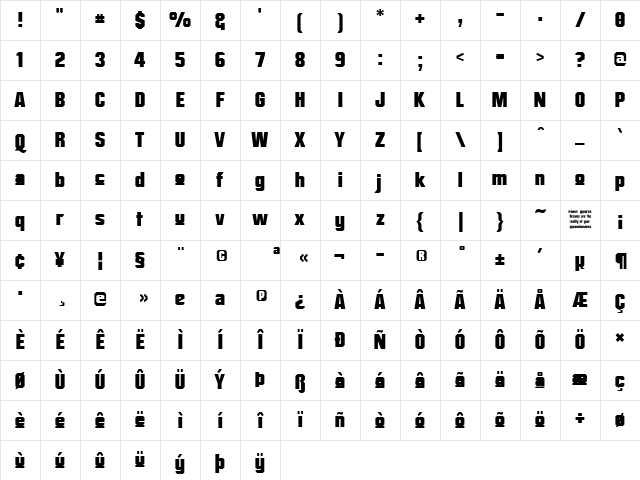
Complete Mister Belvedere Upper Regular glyph index. Displaying only characters natively supported by Mister Belvedere Upper Regular font.
Mister Belvedere Upper is a composed and adaptable typeface that performs quietly and consistently across a wide range of design contexts.